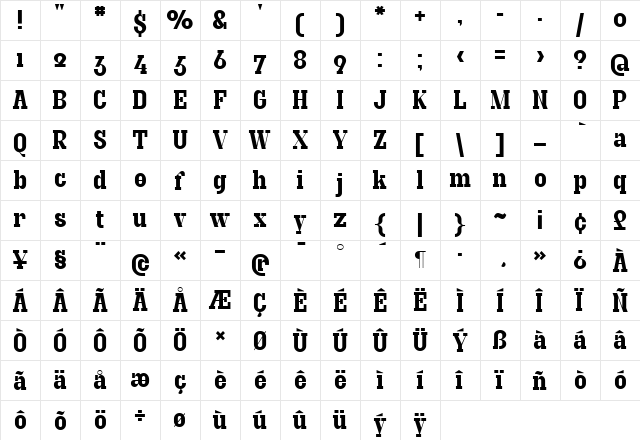
GraniteAlternate Regular
Design Context for GraniteAlternate Typeface
GraniteAlternate is a composed and adaptable typeface that performs quietly and consistently across a wide range of design contexts.